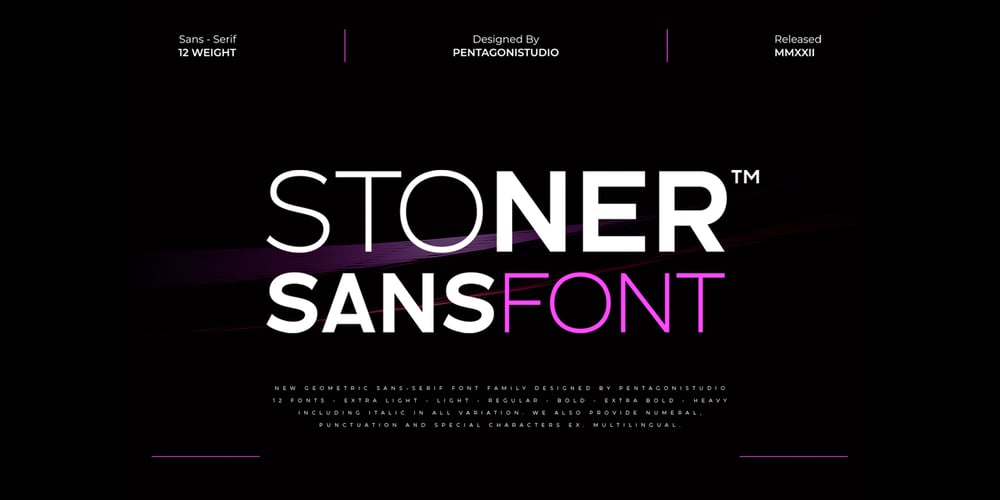
Stoner PS Font Family was designed by Burhan Adiatma and published by pentagonistudio. Stoner PS contains 12 styles and family package options. Stoner PS Is New Geometric Family Sans Inspired By Modern and Elegant Font.SOFTWARE REQUIREMENTS :Fonts and alternate : No special software required they may be used in any basic program /website apps that allows standard fonts That’s it folks! You can go ahead and get cracking :)Follow My Shop For Upcoming Updates Including Additional Glyphs And Language Support. And Please Message Me If You Want Your Language Included or If There Are Any Features or Glyph Requests, Feel Free to Send me A Message. Have a Good Day !